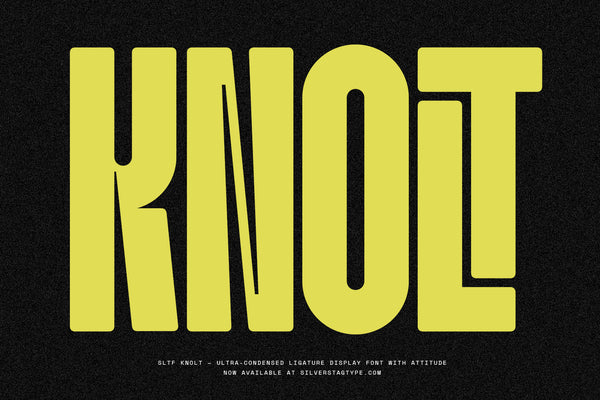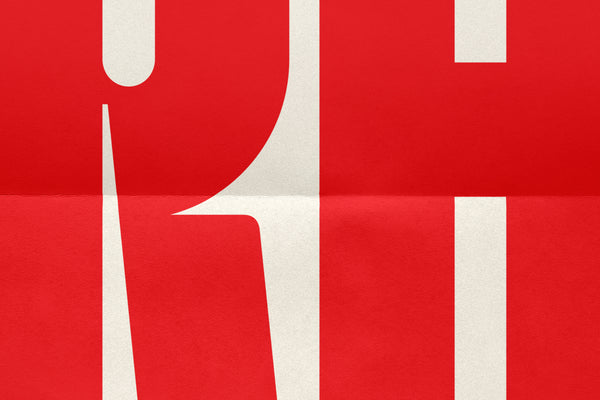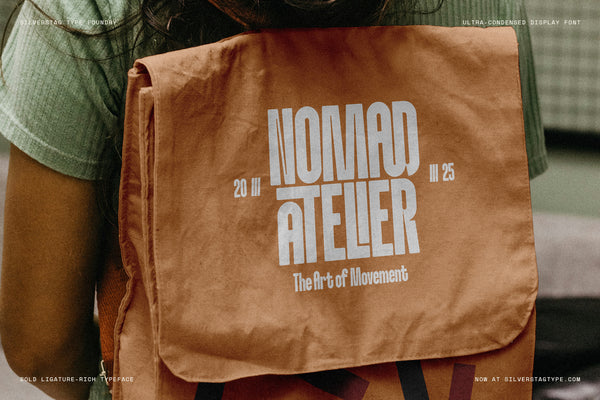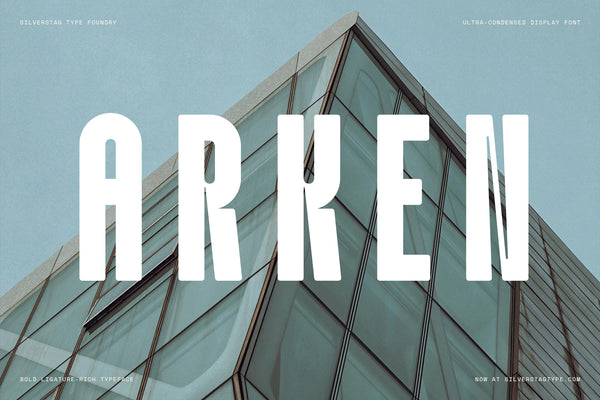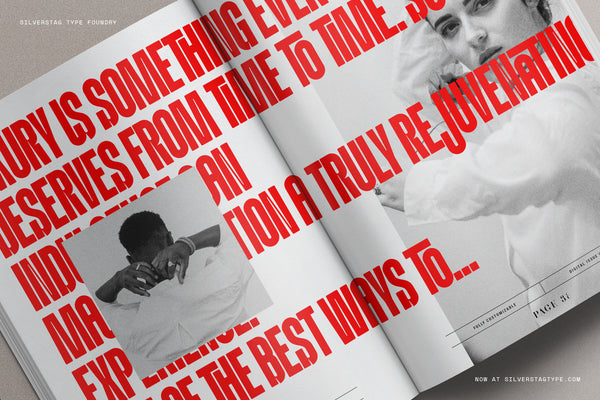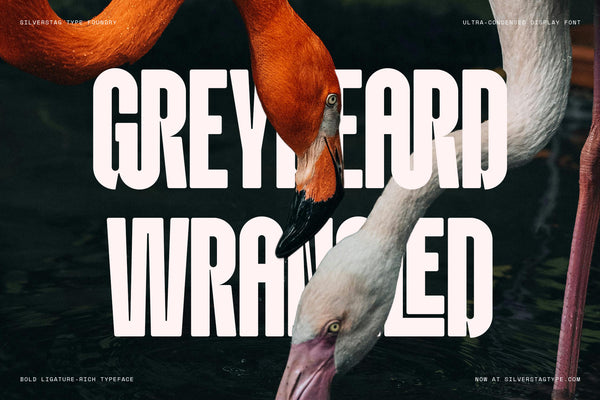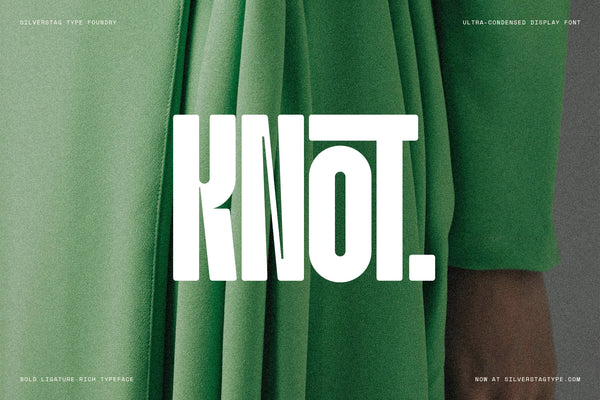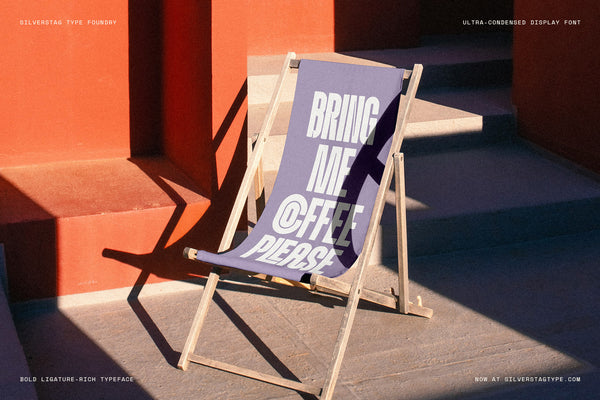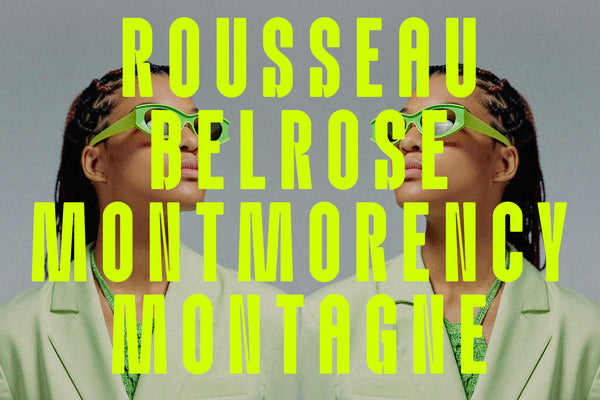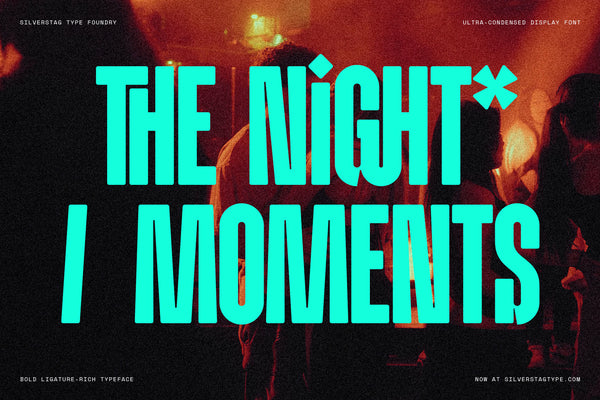
Introducing SLTF Knolt – a bold ultra-condensed display font crafted for maximum impact. With its sharp ink traps, dramatic contrast, and precision-cut curves, Knolt brings a high-fashion, high-energy feel to any design. This font isn’t just narrow - it’s intentionally designed to command attention with a sleek silhouette and an edge of rebellion.
Packed with over 100 unique ligatures, SLTF Knolt transforms ordinary text into expressive typographic statements. Whether you’re building modern branding, designing scroll-stopping headlines, or creating music posters, product packaging, or editorial layouts, Knolt delivers clarity, tension, and style in every character.
This font includes both uppercase and lowercase alphabets, a wide range of punctuation, multilingual support for 90+ languages, and optimized OTF + Webfont formats. Designed specifically for large sizes and tight tracking, Knolt shines in environments where typography leads the visual story.
If you’re after something bold, condensed, and creatively charged, SLTF Knolt is your new go-to. Try it in the live tester, explore its ligatures, and see just how far you can push your design work.